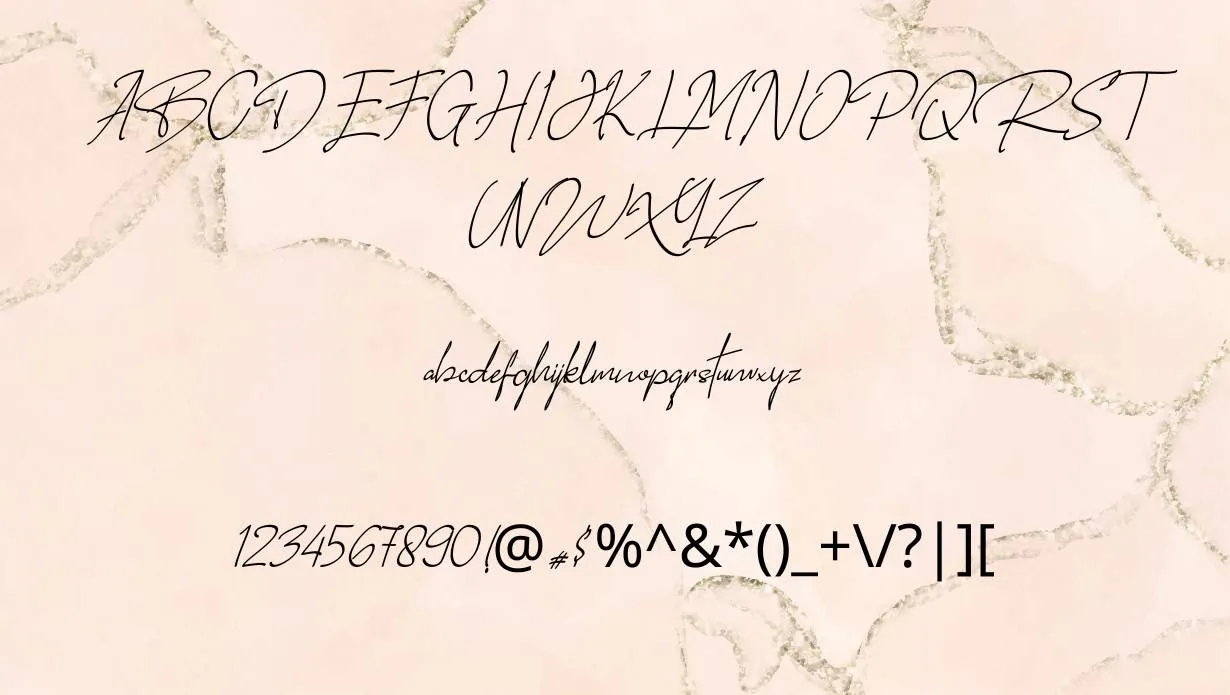
Rotherland Signature Font has an elegant and personalized feel. Its stylish, cursive letters bring a sense of sophistication and charm to any text. This font typically comes in TTF and OTF file formats, ensuring flexibility for different design software.
It’s often seen in branding or invitations, evoking a feeling of refinement and grace. Its signature-like appearance adds a touch of class, making the text look distinguished and elegant. Transform your design project into a captivating masterpiece by including this typeface. You can use the chicken hut font independently or harmoniously pair it with other fonts.